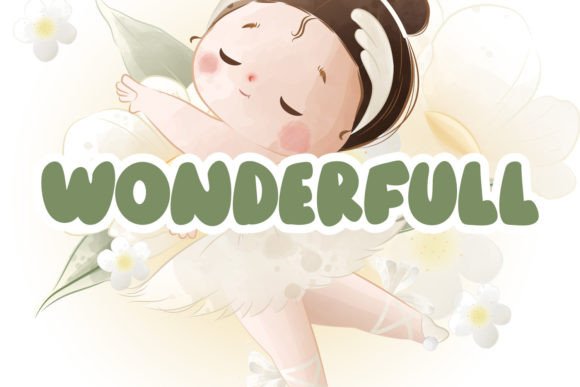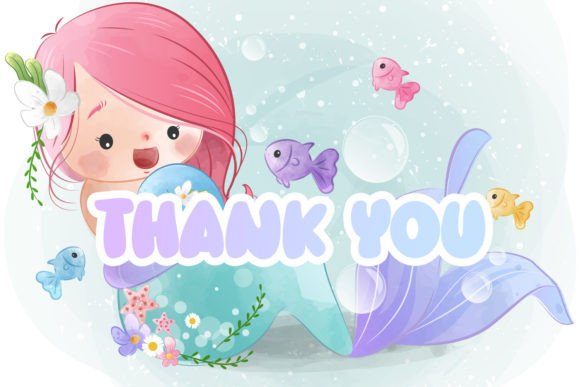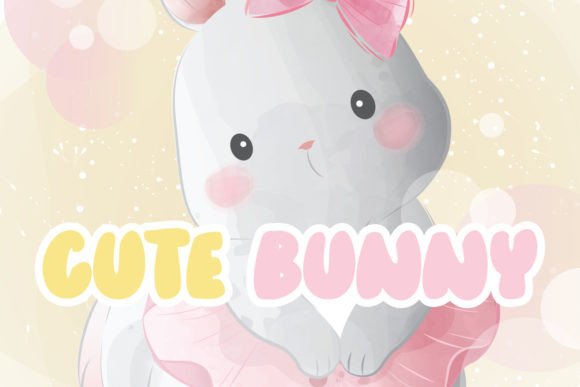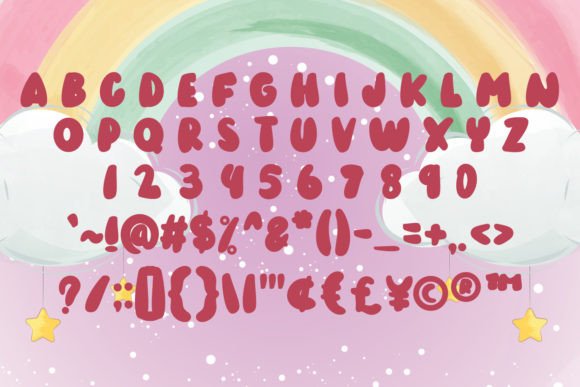
Introducing Groovy Cool Font: The Ultimate Display Font for Creative Projects
Are you tired of using the same old fonts for your creative projects? Look no further! Groovy Cool Font is here to revolutionize the way you express yourself through typography. This bold and quirky display font is designed to add a touch of friendliness and approachability to your designs, making it incredibly versatile for a wide range of contexts.
The Characteristics of Groovy Cool Font
Groovy Cool Font is a bold and eye-catching display font that is sure to make your creative ideas stand out. Its unique and quirky design gives it a friendly feel that is hard to resist. The font’s boldness makes it perfect for headlines, titles, and other display purposes, while its friendly tone ensures that it remains approachable and engaging.
One of the standout features of Groovy Cool Font is its incredible versatility. Whether you’re working on a creative project, designing a logo, or crafting a social media post, this font is sure to adapt to your needs. Its friendly feel makes it suitable for a wide range of contexts, from playful and fun to serious and professional.
Groovy Cool Font is a must-have for designers and crafters looking to add a touch of personality to their work. Whether you’re creating:
• Logos and branding materials
• Planners and organizers
• Stationery and invitations
• Digital art and illustrations
This font is sure to elevate your designs and make them stand out from the crowd.
Why Choose Groovy Cool Font?
So, why should you choose Groovy Cool Font for your next project? Here are just a few reasons:
• Unique and eye-catching design: Groovy Cool Font is a bold and quirky display font that is sure to grab attention.
• Friendliness and approachability: The font’s friendly feel makes it perfect for a wide range of contexts, from playful to professional.
• Versatility: Groovy Cool Font is suitable for a wide range of creative projects, from logos and branding materials to social media graphics and digital art.
• Ease of use: This font is easy to read and works well in both digital and print formats.
Tips for Using Groovy Cool Font
To get the most out of Groovy Cool Font, here are a few tips to keep in mind:
• Use it sparingly: While Groovy Cool Font is bold and eye-catching, it’s best to use it sparingly to avoid overwhelming your design.
• Pair it with complementary fonts: Pair Groovy Cool Font with complementary fonts to create a cohesive and visually appealing design.
• Experiment with different sizes and colors: Don’t be afraid to experiment with different sizes and colors to find the perfect combination for your design.
Groovy Cool Font is a bold and quirky display font that is sure to add a touch of personality to your creative projects. Its friendly feel and incredible versatility make it a must-have for designers and crafters looking to elevate their designs. Whether you’re working on a logo, social media graphic, or digital art piece, Groovy Cool Font is the perfect choice. So why wait? Add it to your creative toolkit today and watch your designs come to life!